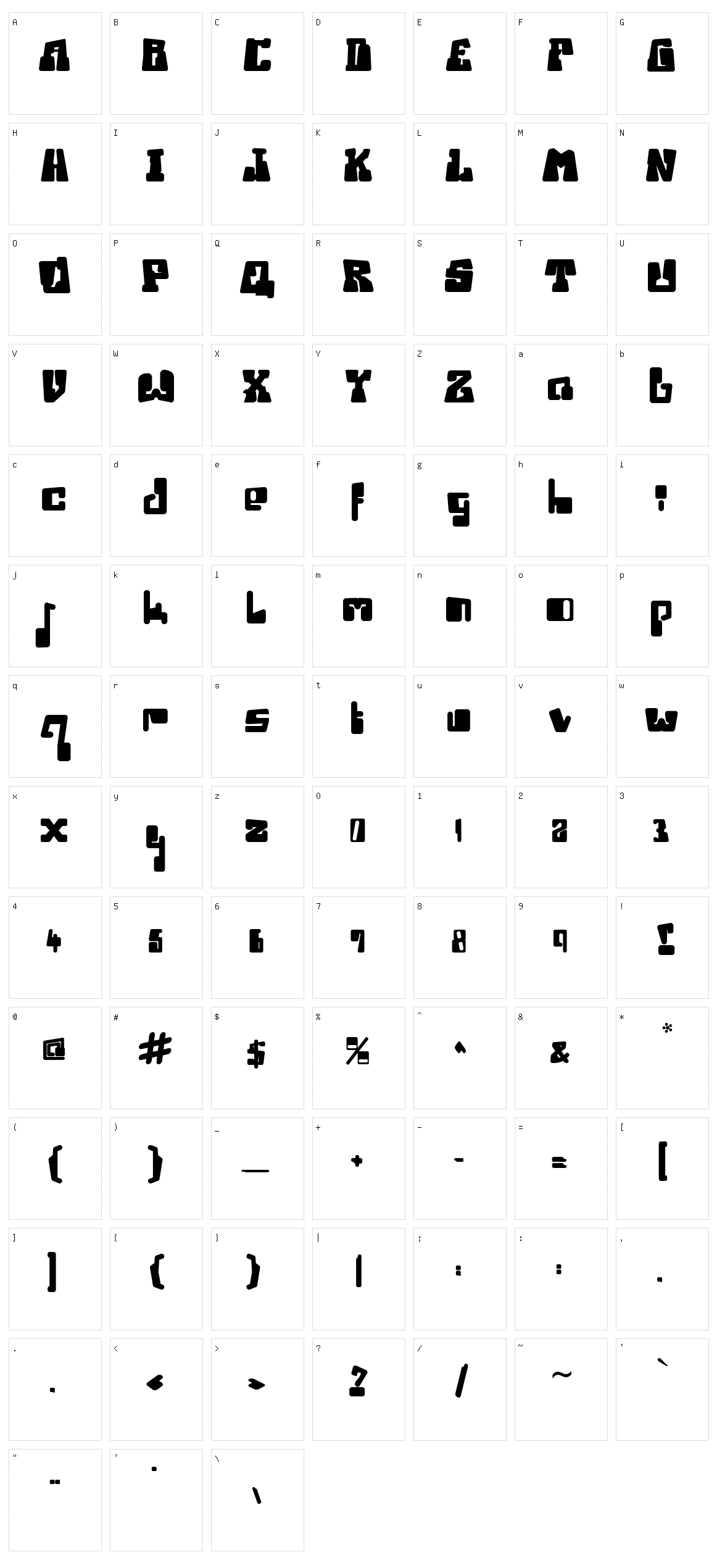
The free font Ice Station Awesome is carefully designed by Hugo Beyts, showcasing a thoughtful balance of creativity and usability and falls under the Cartoon font style. When you download the ZIP file, it contains only 36.21 KB of font files, making it lightweight and quick to download. Please review the license details below to understand permitted usage and distribution rights. If license information is not available, we recommend using this font for personal projects only or contacting the author directly for commercial usage permissions.